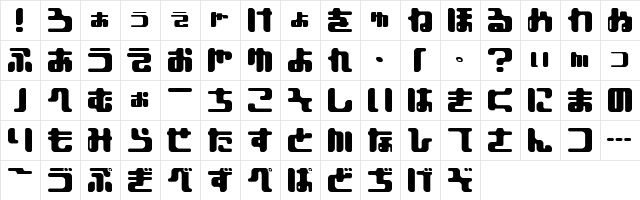
EOPla hiragana
Design Context for EOPla Typeface
EOPla offers clean, dependable letterforms without strong stylistic allegiance, making it a practical choice for designers who need flexibility.